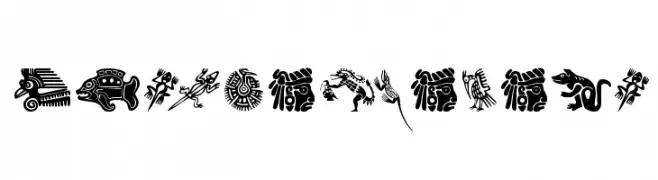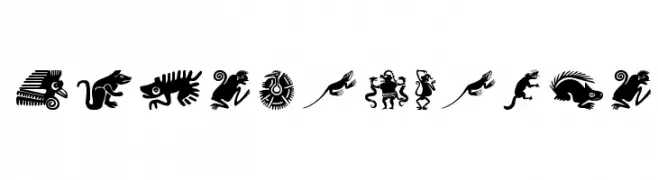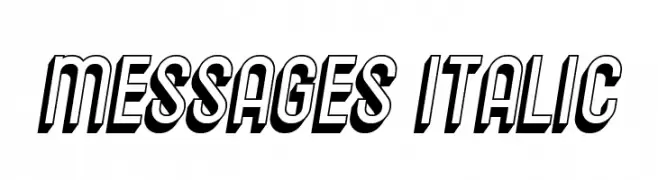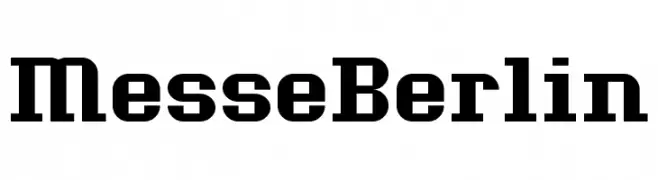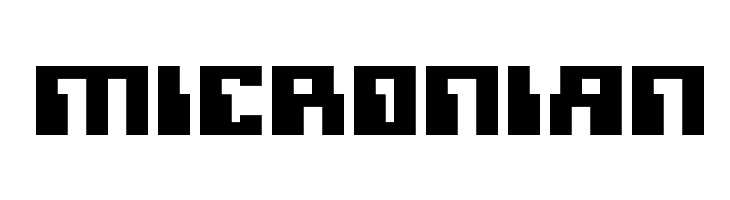
A decorative font featuring intricate, tribal-inspired glyphs of animals and mythical creatures.
A decorative set of glyphs inspired by Mesoamerican fauna, featuring intricate and bold designs.
( Fonts by Fil Acy )
A playful, bubbly font with rounded characters and a whimsical style.
( Vladimir Nikolic - www.coroflot.com/vladimirnikolic )
Bold, italicized font with a 3D shadow effect for a dynamic look.
( Fonts by www.girlswhowearglasses.com )
A bold, playful font with exaggerated curves and a whimsical flair.
( Chequered Ink - chequered.ink/ )
A bold slab serif font with strong, block-like serifs and high contrast.
( Vladimir Nikolic - www.coroflot.com/vladimirnikolic )
Hand-drawn, monster-themed decorative font with unique illustrations for each character.